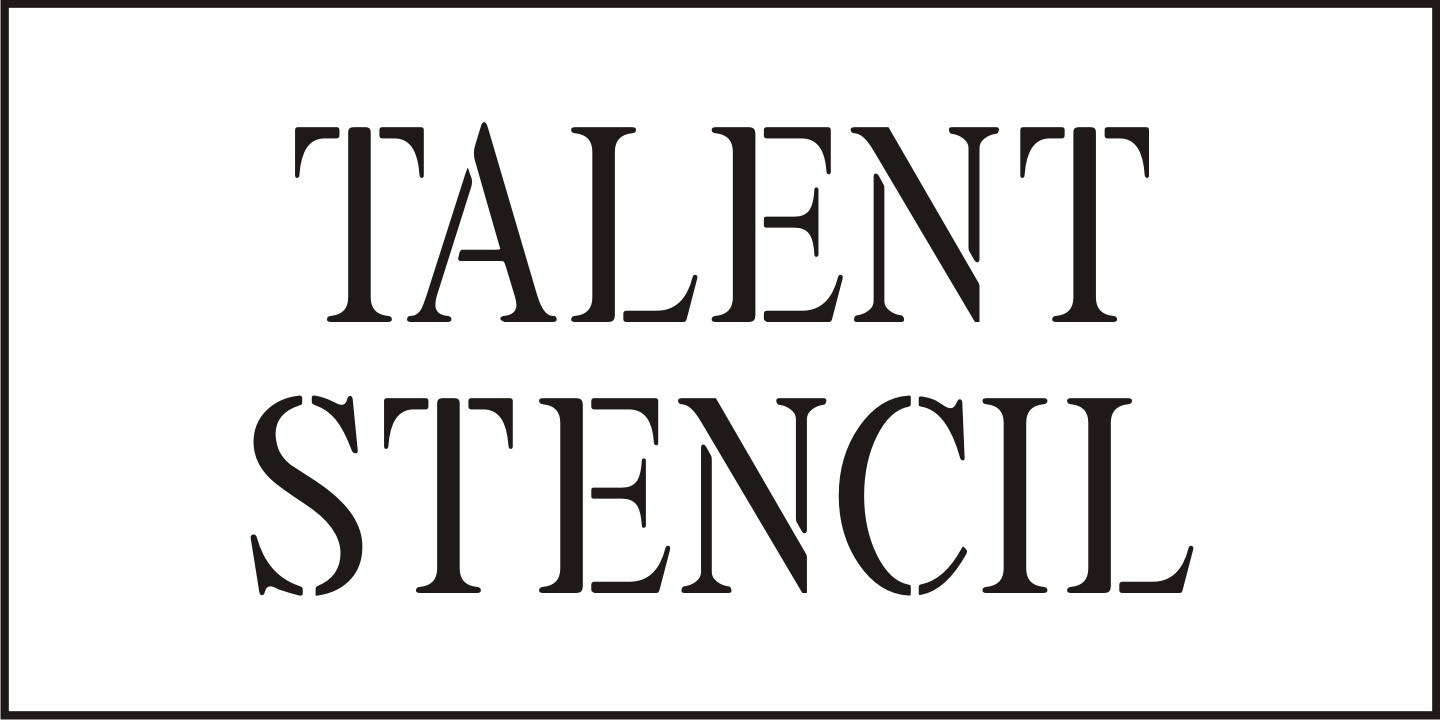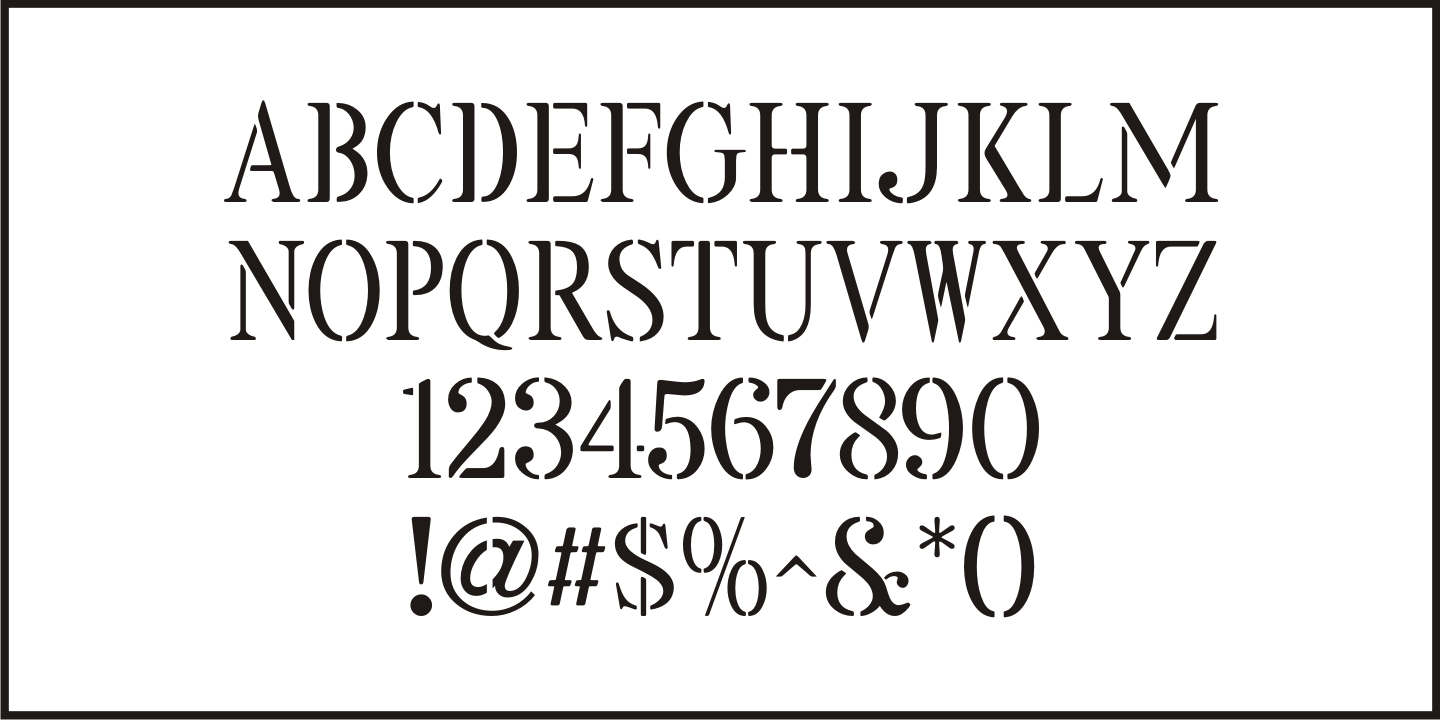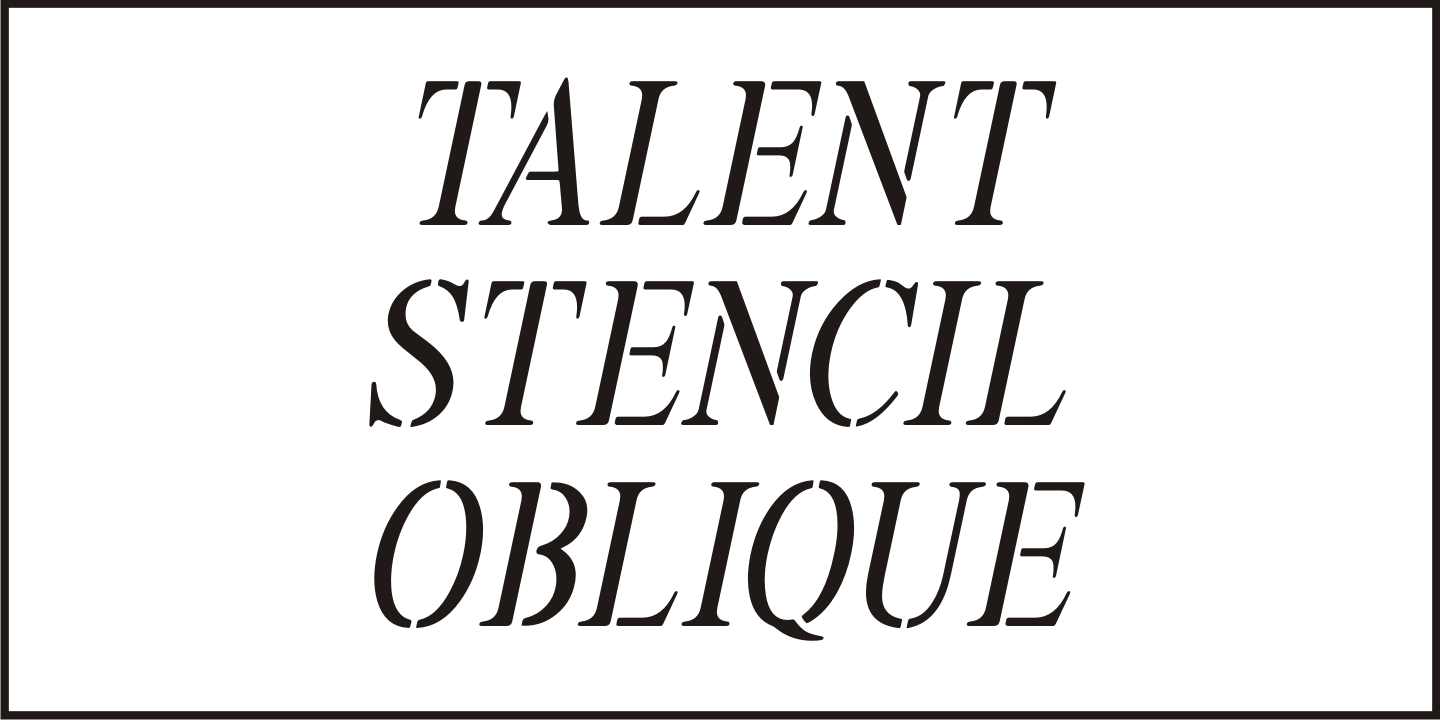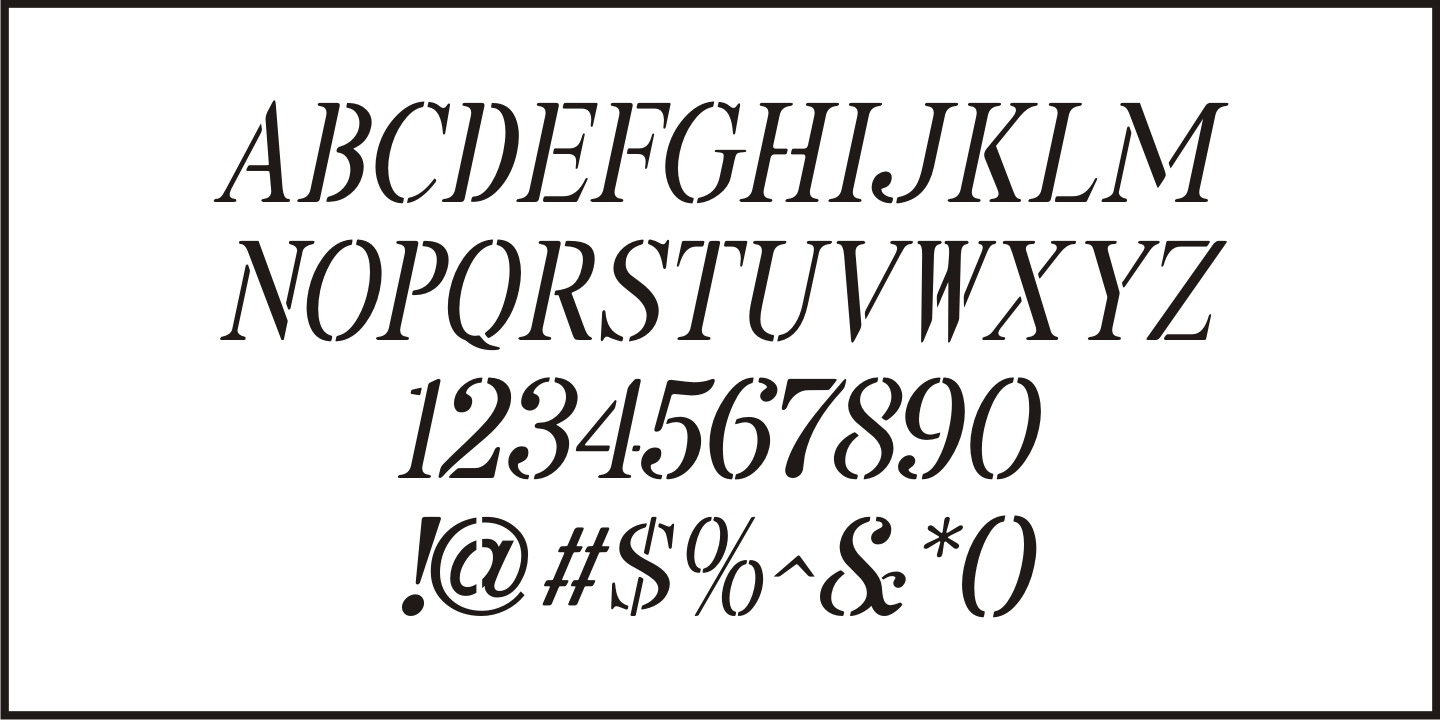
Talent Stencil
Stencils have played a number of roles over the years, from decorative patterns to military markings; from labeling shipping containers to a student's school project.
One unusual application of a stencil alphabet was some metal letters spotted for sale at an online auction site. These antique letters were used for promoting the current show on a theater marquee just as plastic ones are used nowadays.
Following the auction images as a guide, the Roman stencil font from those marquee letters is now preserved digitally as Talent Stencil JNL; which is available in both regular and oblique versions.